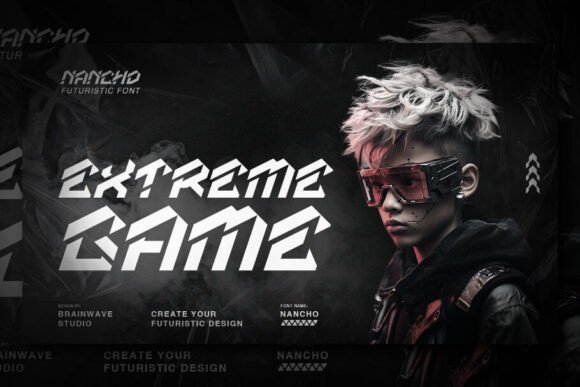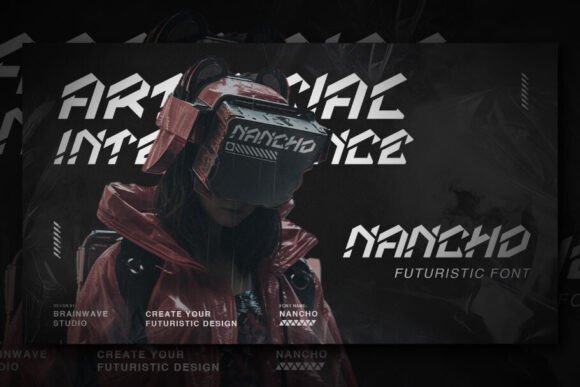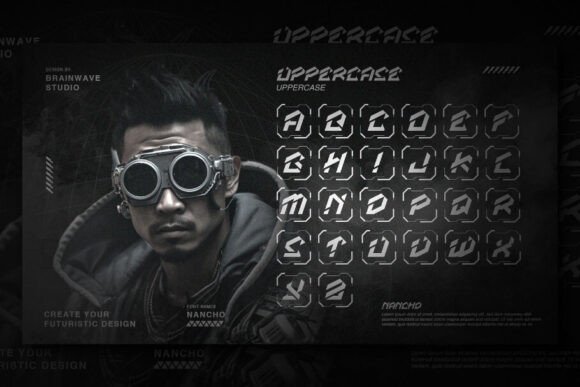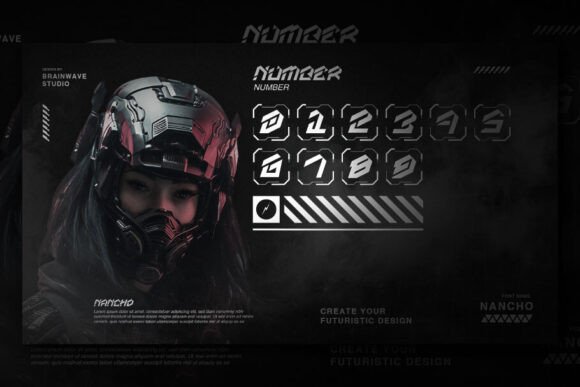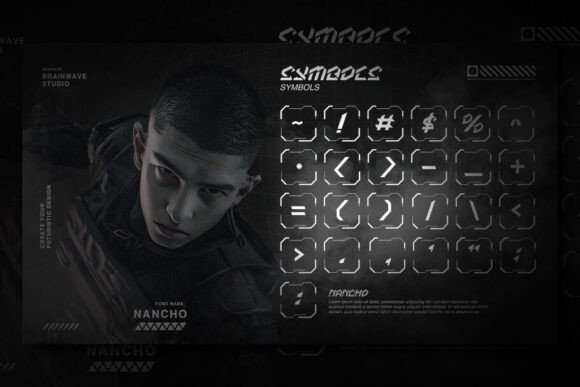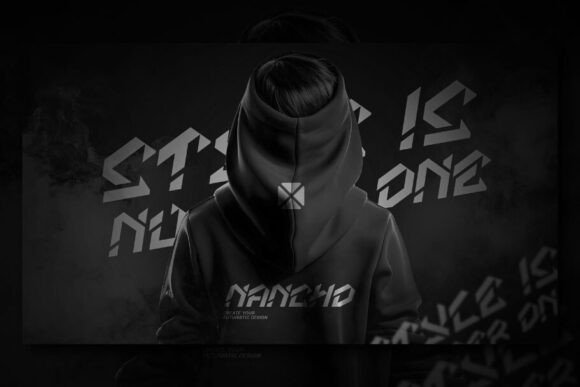
Introduction to Nancho Font
Have you ever found yourself stuck on a design project, struggling to convey the futuristic essence you had envisioned? Perhaps you were trying to create a captivating title for a sci-fi novel or a bold logo for a tech startup. If you’ve ever felt like your design was missing that extra oomph, you might want to consider using the Nancho Font.
This high-quality, free download font is specifically designed to give your creative projects that cutting-edge look. With its dynamic, italic style and sharp lines, the Nancho Font is perfect for designers who want to add a sense of speed and technology to their work.
Whether you’re working on a design project that requires a modern, innovative look or simply want to add some visual interest to your designs, the Nancho Font is an excellent resource to have in your toolkit. With its transparent background, you can easily overlay it on top of your design without any distractions.
Key Features of Nancho Font
- High-quality, hand-drawn design ideal for creative projects.
- Includes 4 styles with a transparent background for easy customization.
- Font size: 300 DPI, with a large character set for effective communication.
- Unique characteristics: playful, whimsical, and full of personality, making it perfect for illustrations and graphics.
- Perfect for use in digital and print designs, including logos, branding, and advertising materials.
Honest Review: Nancho Font
I recently had the chance to experiment with the Nancho Font, and I must say it’s been a game-changer for my creative projects. The high quality of this font is immediately apparent, with crisp, clear lines and a wide range of styles to choose from.
One of the standout features of Nancho Font is its versatility. It’s perfect for designing anything from logos to branding materials, and its transparent background makes it easy to use in a variety of different contexts.
Here are some of the things that work well with Nancho Font:
- ✨ Wide range of styles and weights to choose from
- ✨ High quality, crisp lines and clear typography
- ✨ Easy to use, even for designers with limited experience
- ✨ Perfect for creating a professional, polished look
- ⚠️ Limited customization options, which may be a drawback for more advanced designers
- ⚠️ Not suitable for use in small text sizes, as it can become difficult to read
Overall, I’m thoroughly impressed with the Nancho Font. Its high quality and versatility make it an excellent addition to any design resource, and its free download is a definite bonus. If you’re looking for a reliable, high-quality font for your creative projects, I highly recommend giving Nancho Font a try.
Nancho Font
Tips for Getting the Most Out of Nancho Font
For optimal results, use Nancho Font in conjunction with a transparent background. This will allow you to create a high-quality design with a clean and modern look.
Nancho Font is ideal for use in a variety of creative projects, including business cards, brochures, and social media graphics. It is also available as a free download, making it a valuable design resource for anyone looking to add a touch of elegance to their designs.
Alternatives to Nancho Font
1. Bangers Font
Bangers Font is a high-quality, bold sans-serif font ideal for creative projects requiring a modern and edgy look. It’s perfect for headlines, titles, or any text that demands attention. Download it for free to elevate your design resource. Bangers Font is similar to Nancho Font in its bold and playful nature but has a more aggressive feel to it.
Great Vibes Font is a beautiful, elegant script font perfect for creative projects that need a touch of sophistication and style. It’s ideal for wedding invitations, branding, or any design that requires a romantic and luxurious feel. Great Vibes Font is different from Nancho Font in its cursive and flowing nature, making it perfect for designs that require a more delicate touch.
Does the Nancho Font have a transparent background?
Yes, the Nancho Font has a transparent background, making it ideal for use on images and backgrounds with complex designs. The transparent background allows the font to blend seamlessly with your design, giving you more creative freedom.